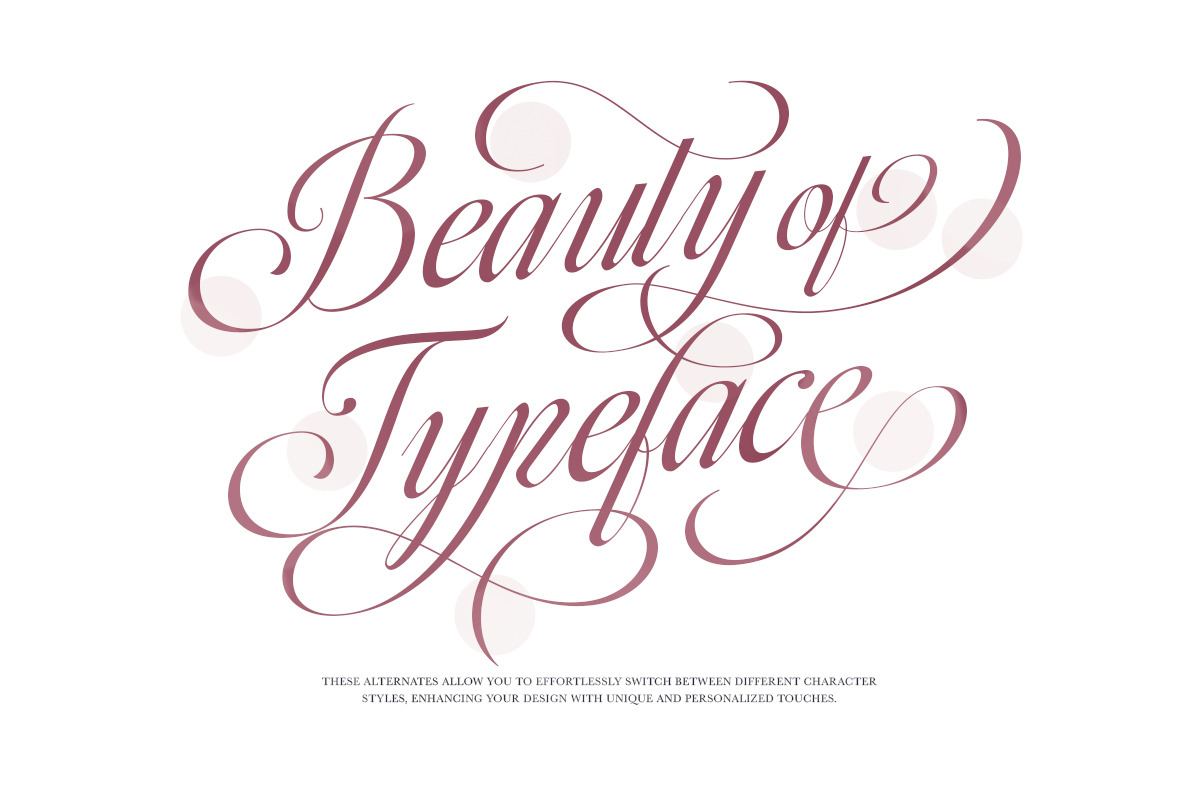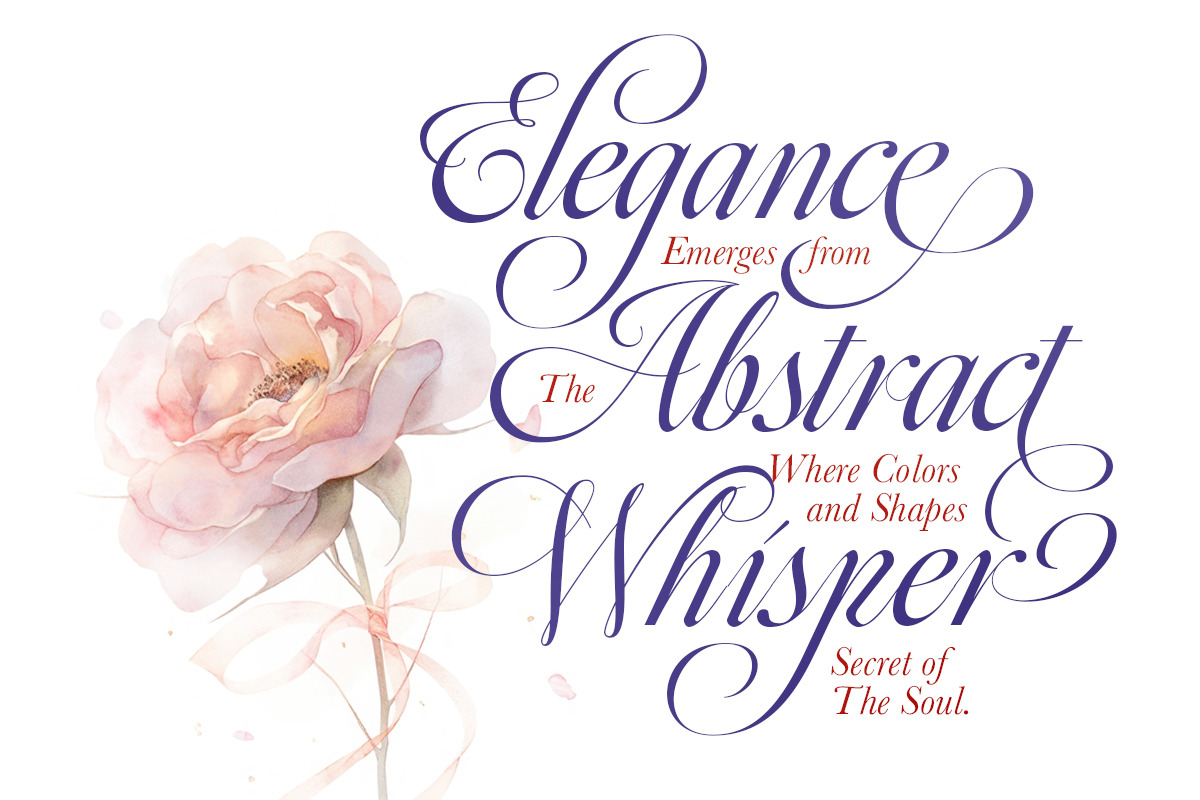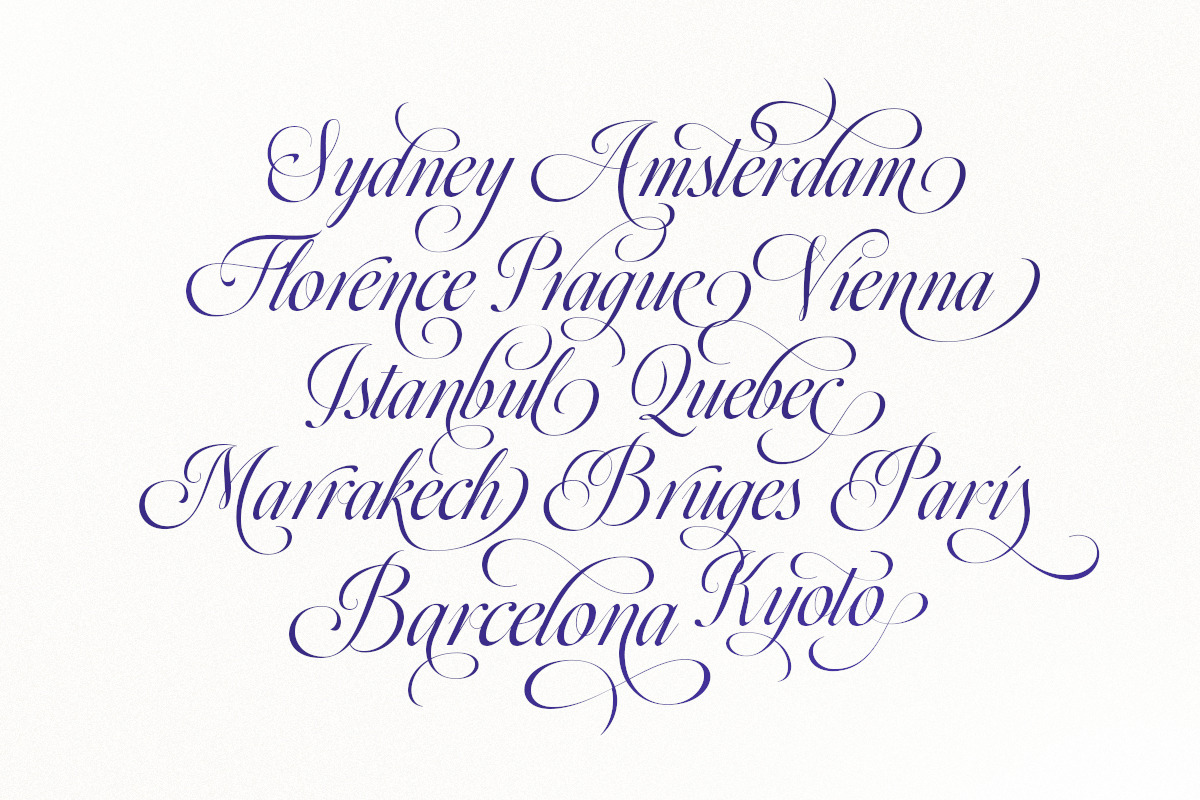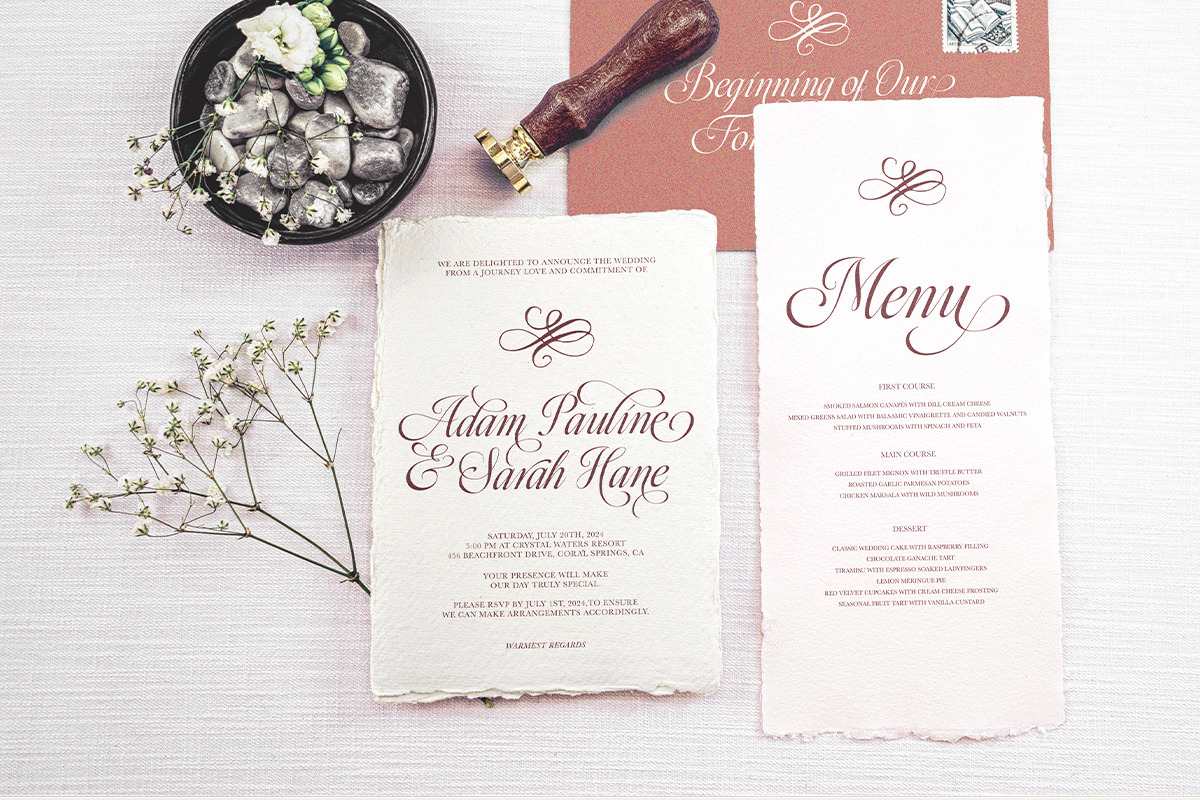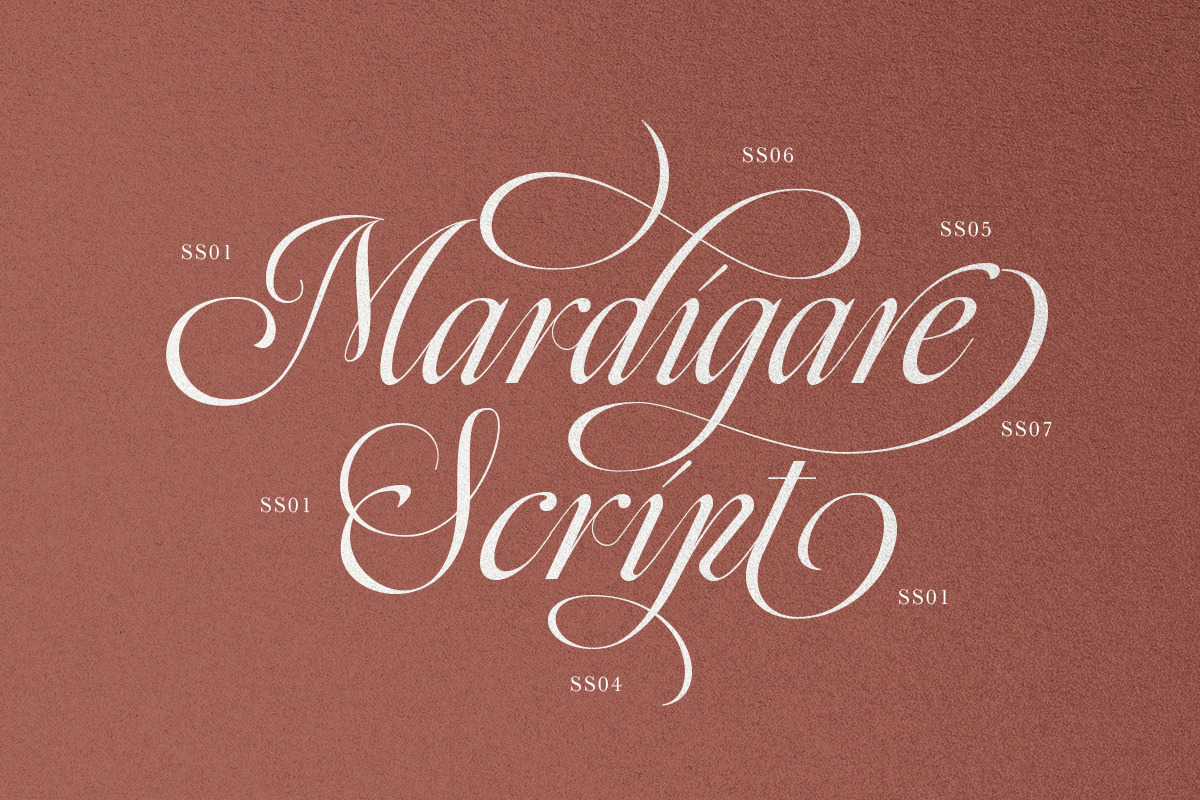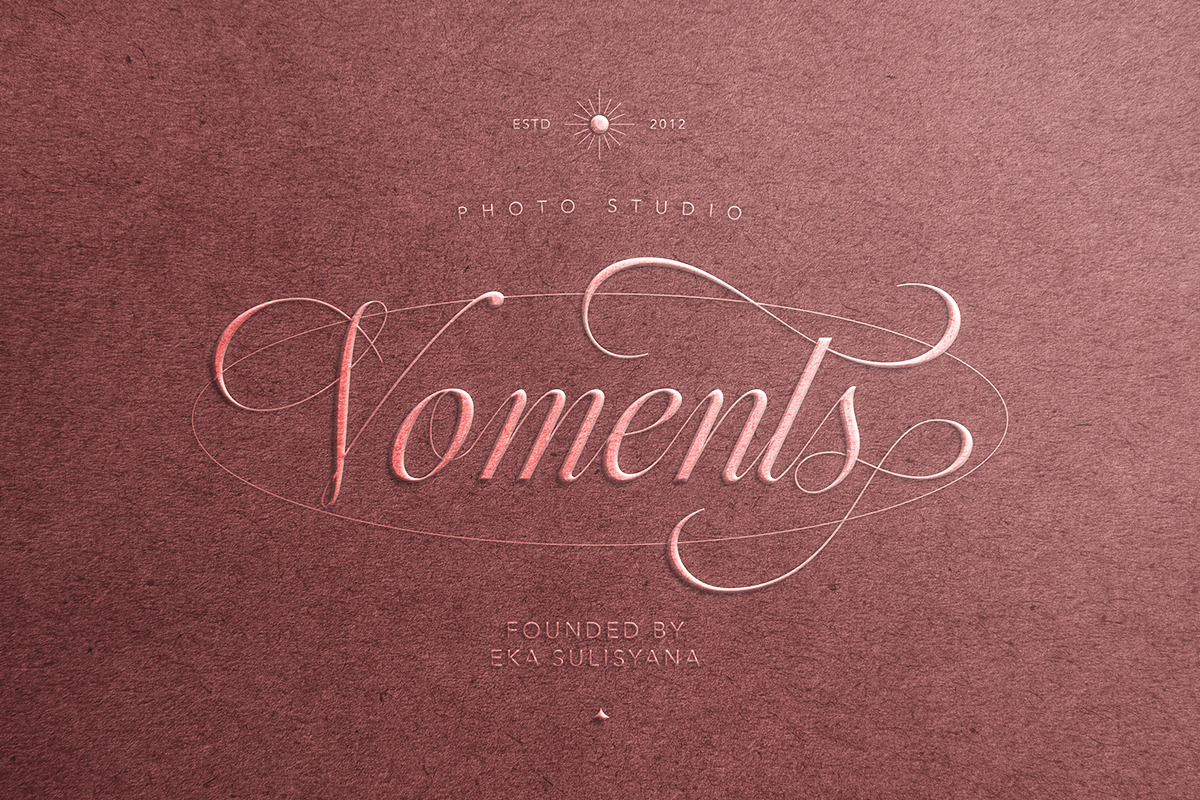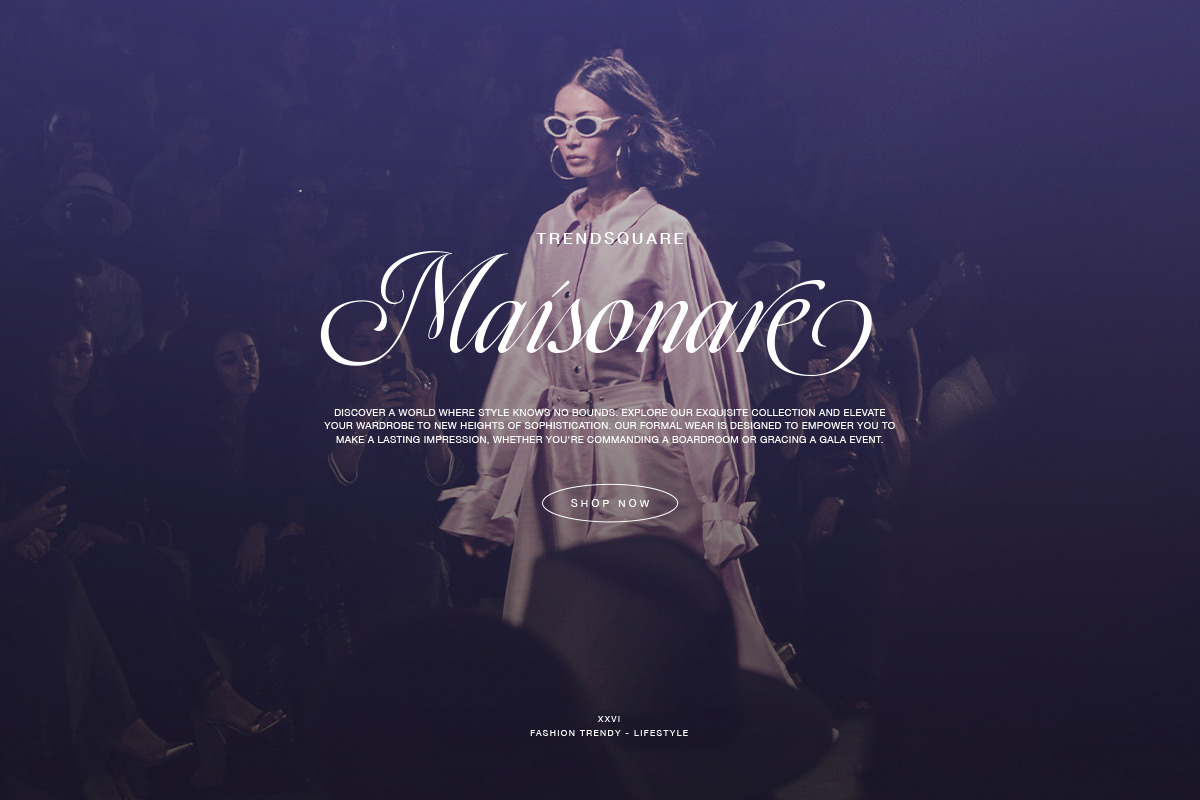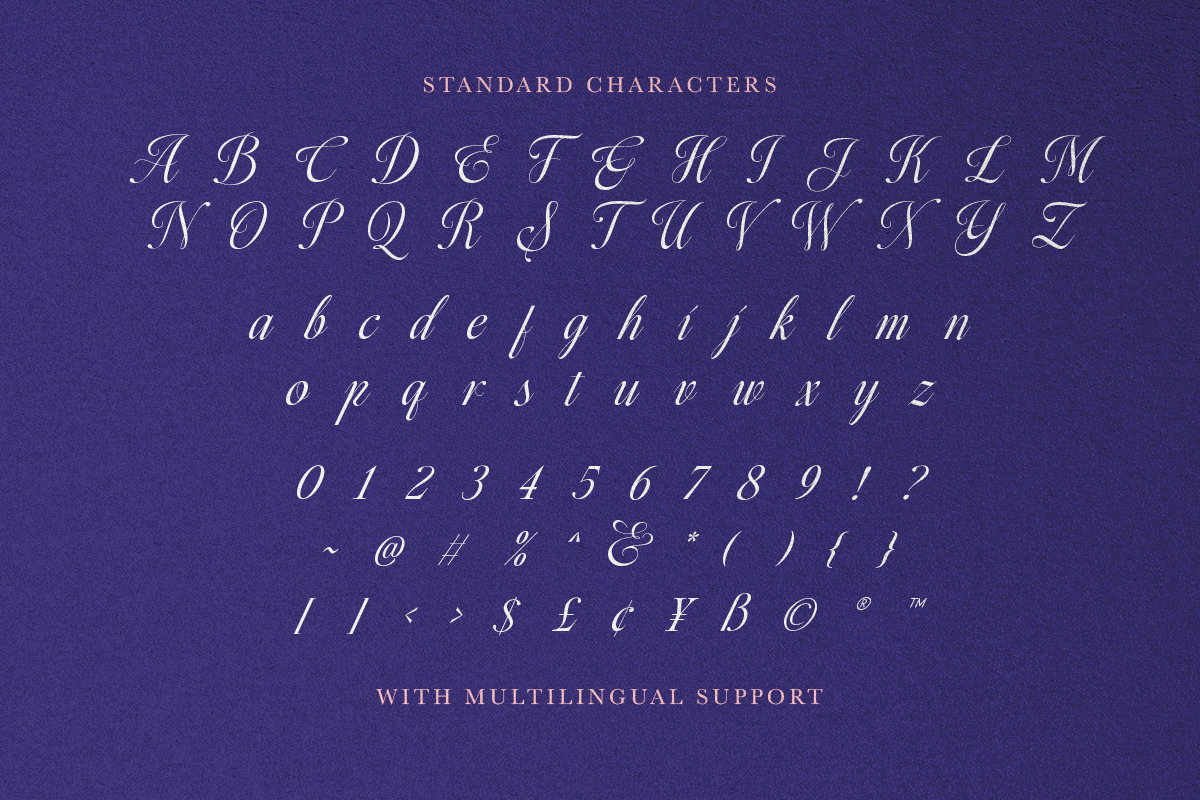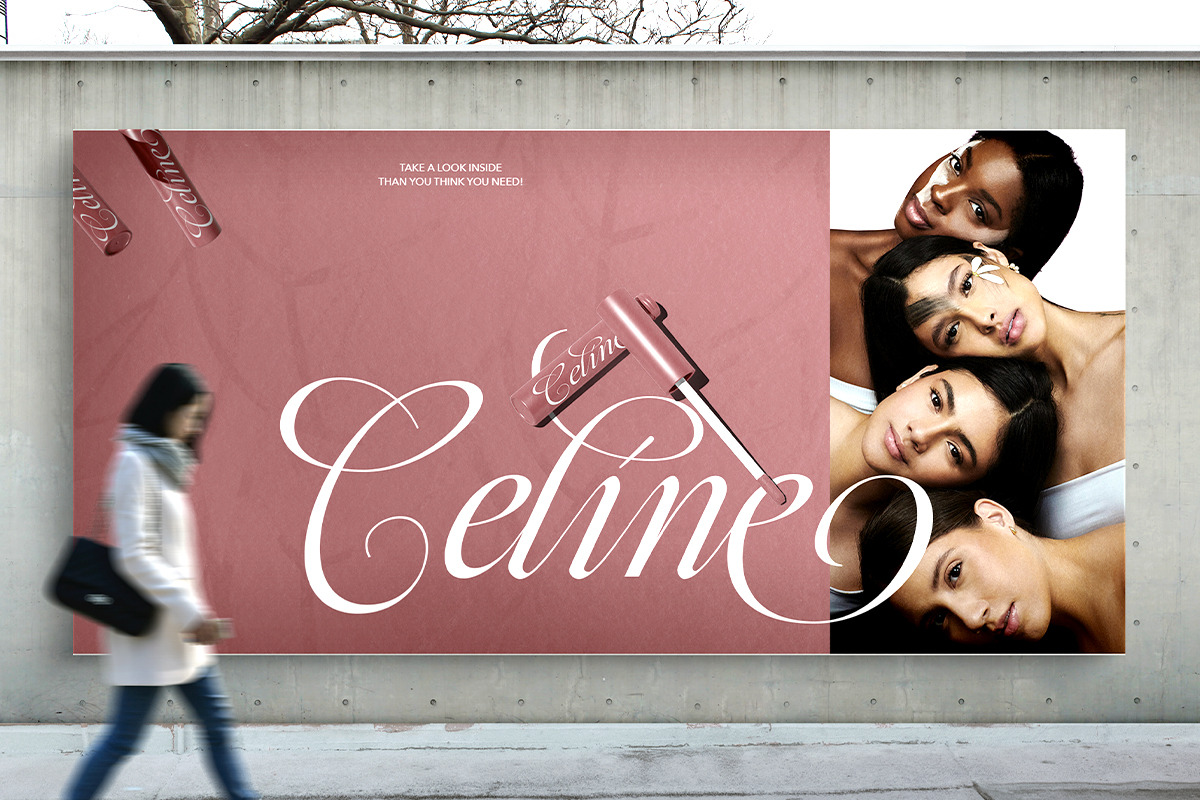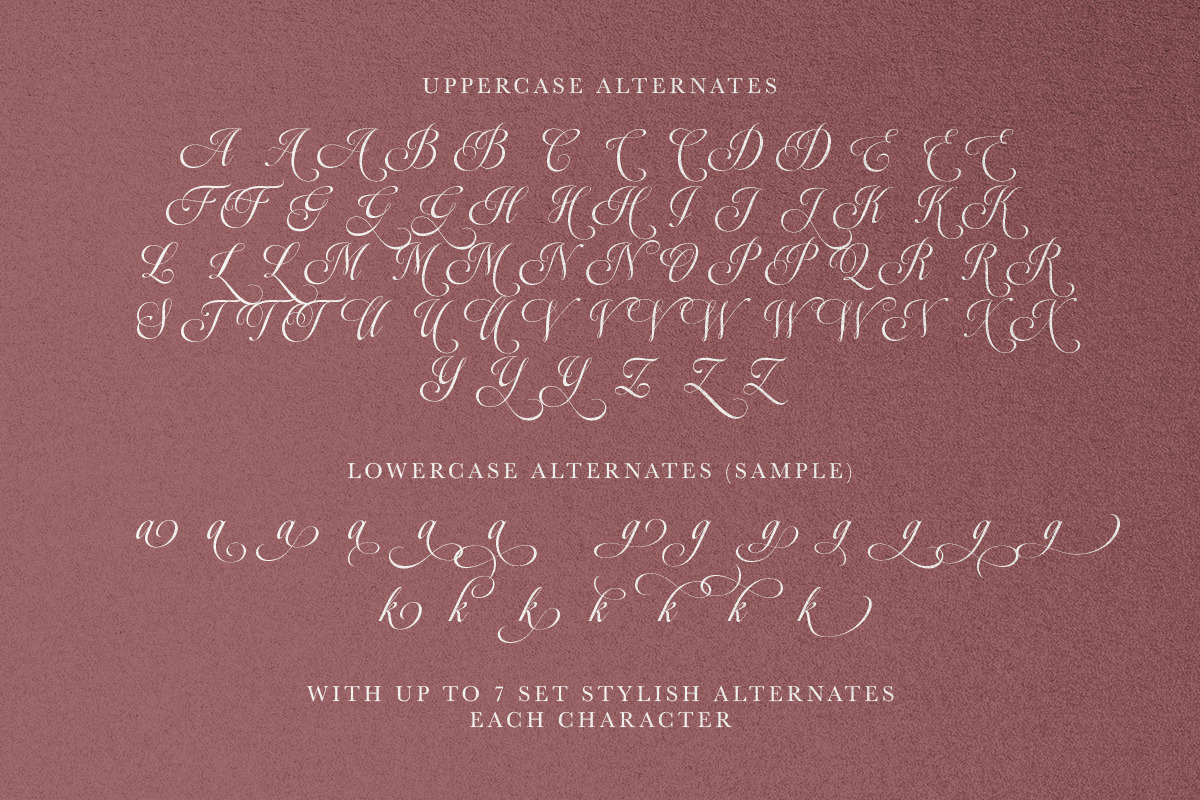
Mardigare - Luxury Script
Mardigare is a luxury and classy script with stylish alternates. You can use this font for branding, logo, quotes, and poster. This font also suitable for wedding invitations. With up to 7 set stylish alternates that you can use, you can make your design more beautiful and stunning. Mardigare also support multi language.